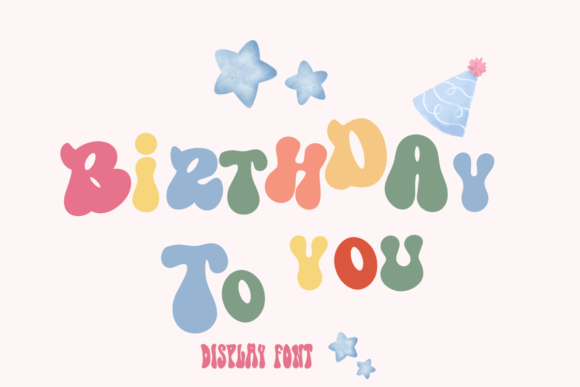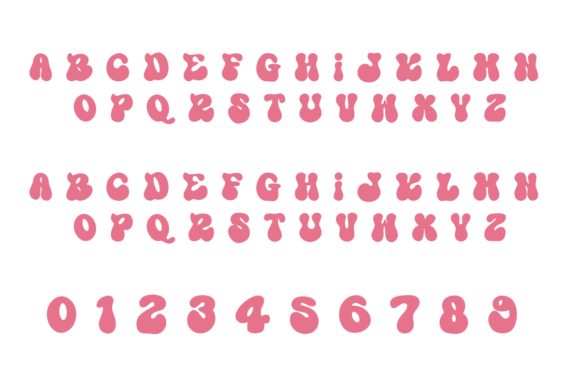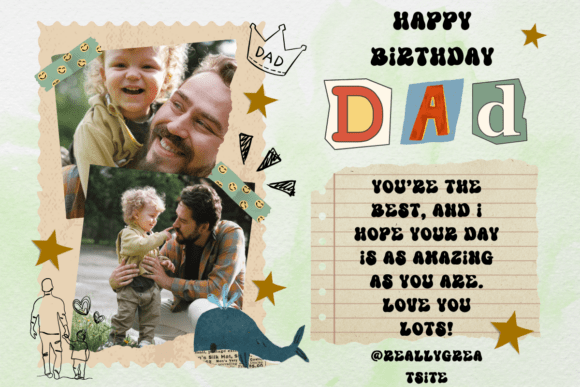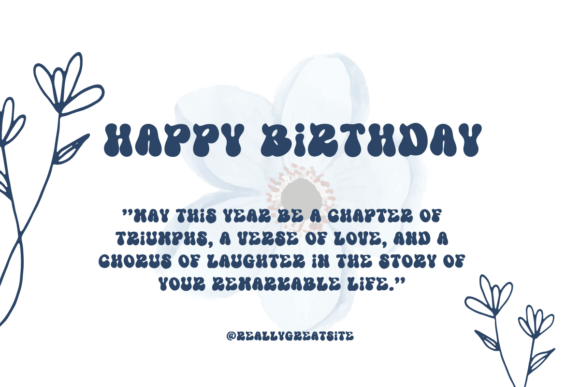
Birthday to You Font
Birthday To You is a colorful and playful display font with soft, bubbly shapes and a joyful vibe. Great for party invitations, birthday cards, kids' apparel, and festive designs, it spreads celebration in every letter.